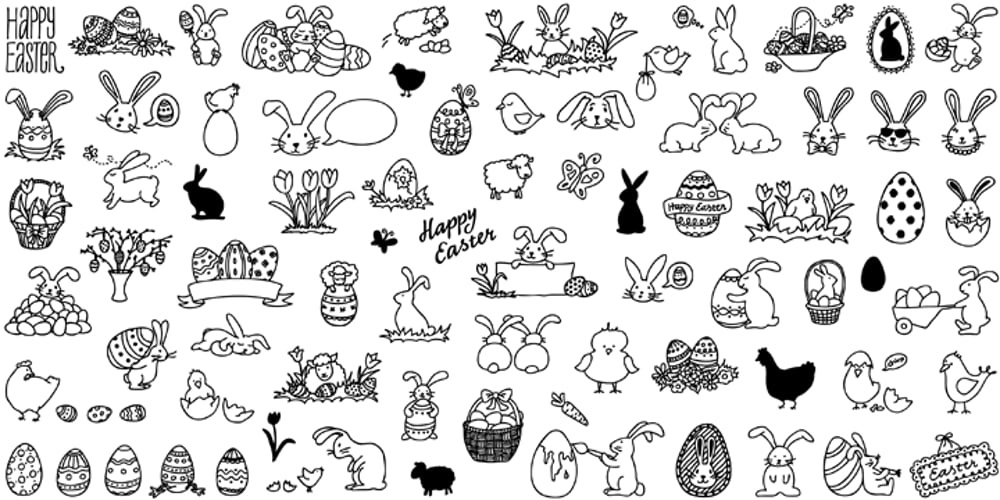
LiebeEaster Font Family was designed by Ulrike Rausch and published by LiebeFonts. LiebeEaster contains 1 styles and family package options. LiebeEaster is a hand-crafted collection of cute little bunnies, chicks, lambs and pretty Easter eggs. Decorate this year’s Easter photos in your scrapbook with these friendly fellas. Or create adorable Easter holiday cards for your friends and family. More than 70 individually designed illustrations are included in this versatile font that can be used in any text or graphics application. If you like this font, have a look at our other cute fonts such as LiebeCook and LiebeTweet.